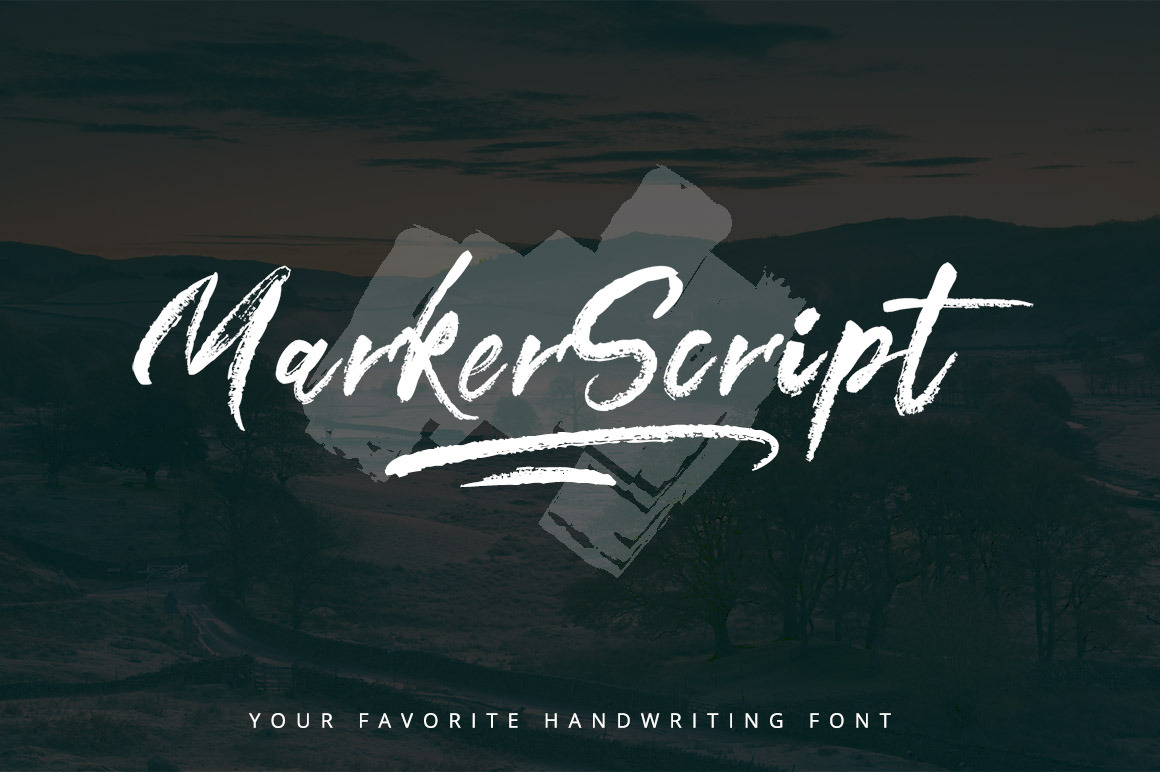
MarkerScript Font
MarkerScript is a set of handwritten style font, Its style is rude, free and prominent. Similar to the brush strokes, It can be used in advertisements, picture albums, posters, illustrations, etc.